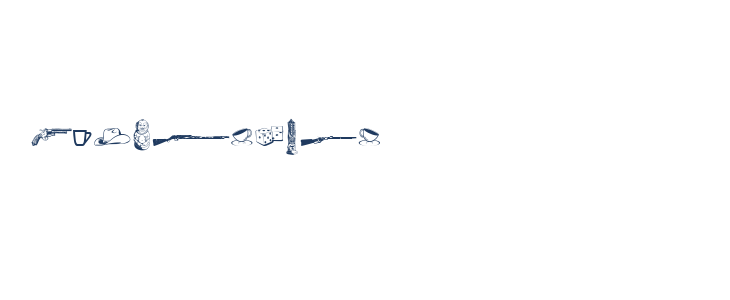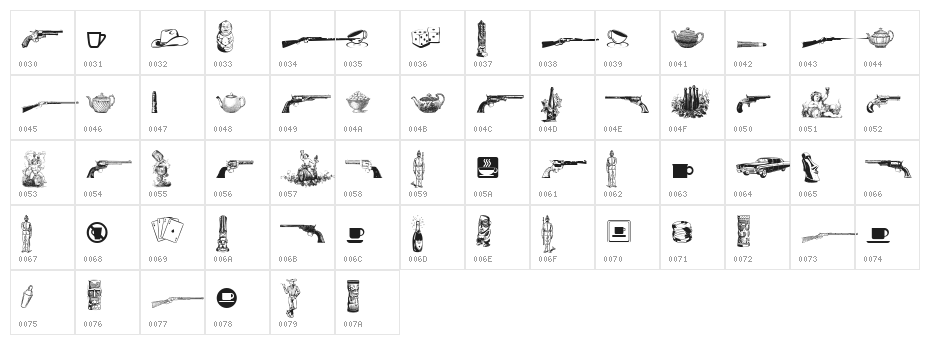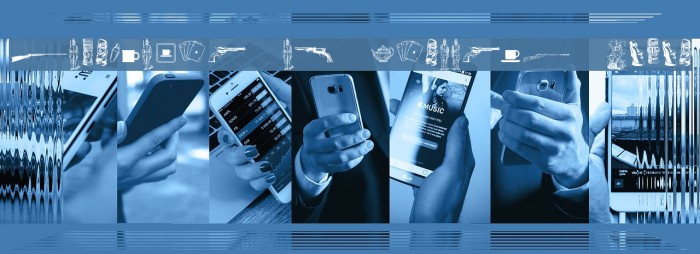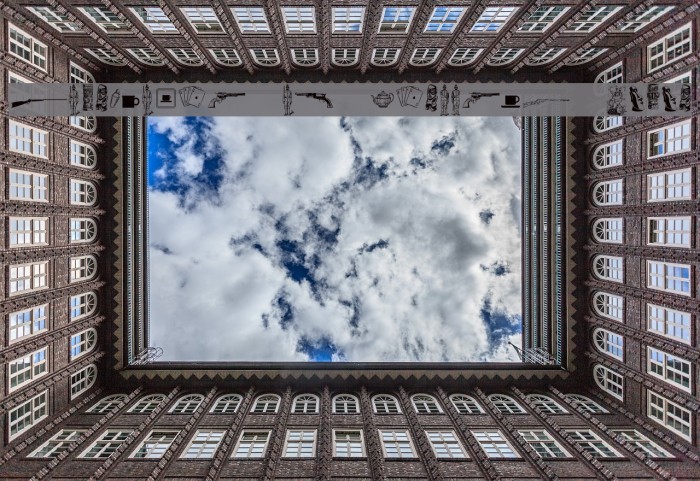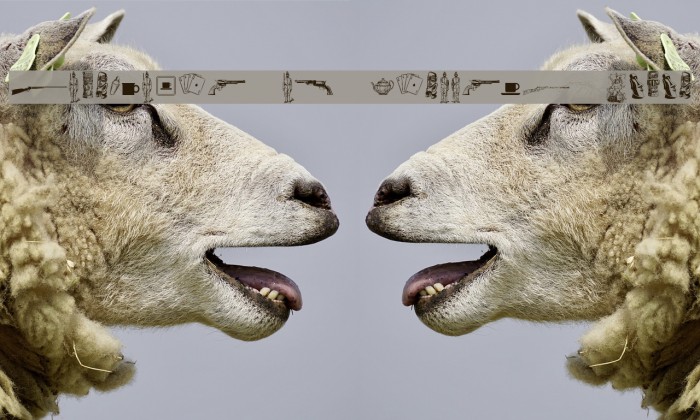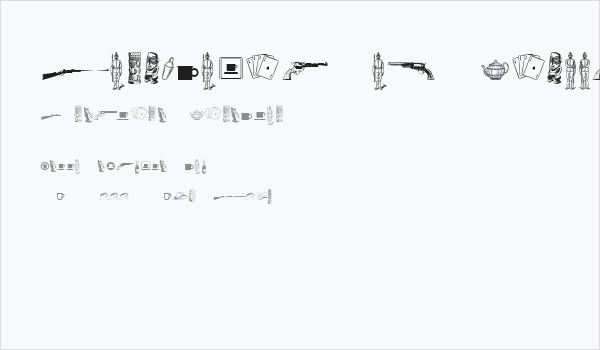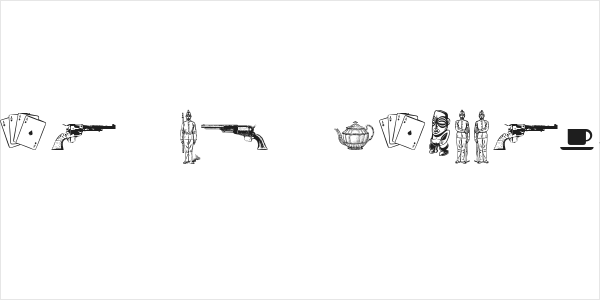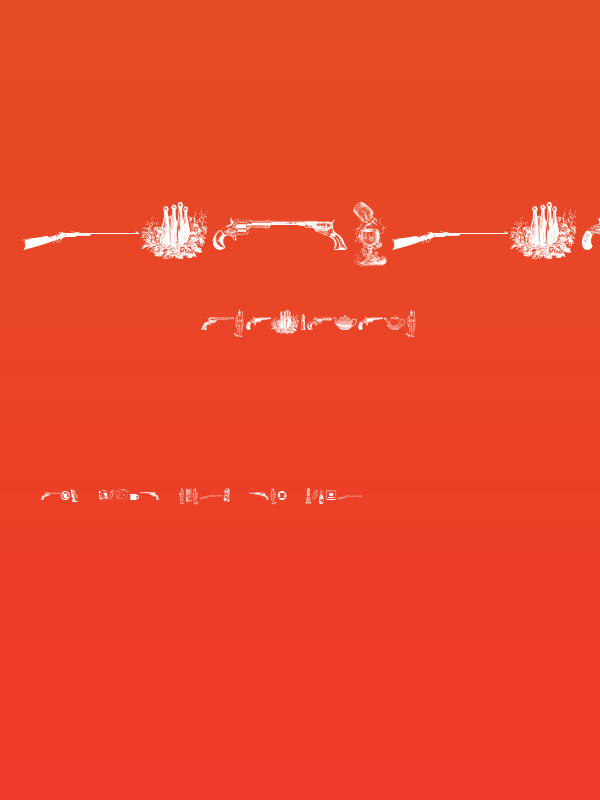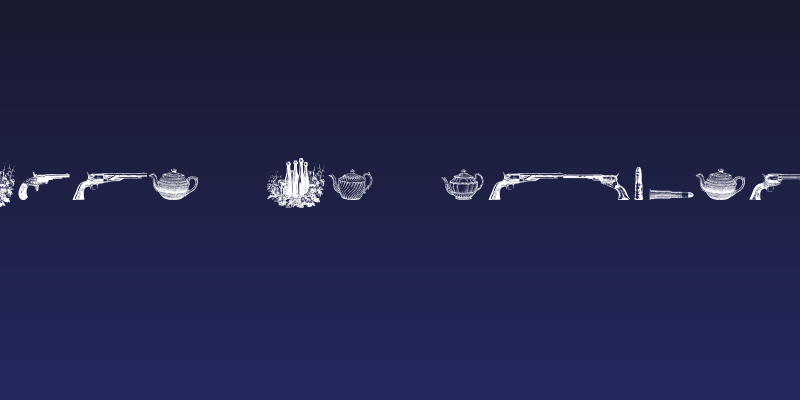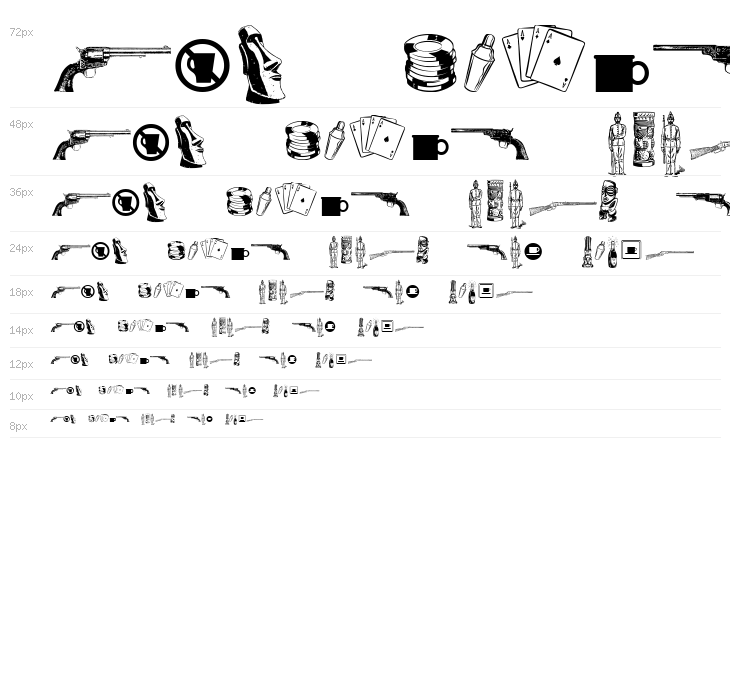
Cornucopia of Dingbats Seven Font
Cornucopia of Dingbats Seven Description
This collection features a diverse array of dingbats, each intricately designed with a vintage aesthetic. The images range from firearms and teapots to cars and coffee cups, each rendered with detailed line work that gives them a classic, illustrative feel. The elements are varied, including objects like dice, playing cards, and various figures, all of which contribute to a nostalgic and eclectic theme. The style is reminiscent of old engravings or illustrations, making it suitable for projects that require a touch of historical or whimsical charm.
| Use Case | Logos, Decorative elements, Themed posters |
| Proposed Projects | Ideal for retro-themed designs, vintage posters, eclectic branding projects, or any creative work that benefits from a historical or whimsical touch. |